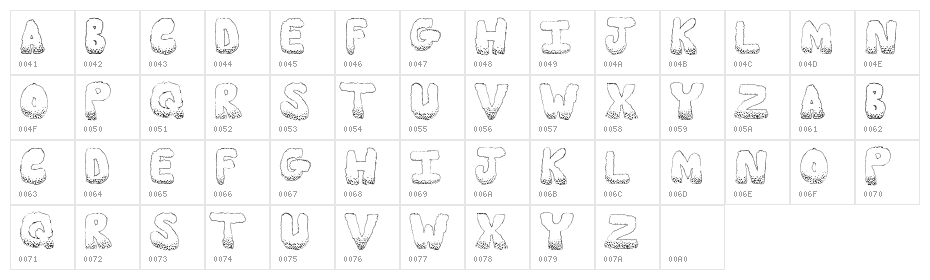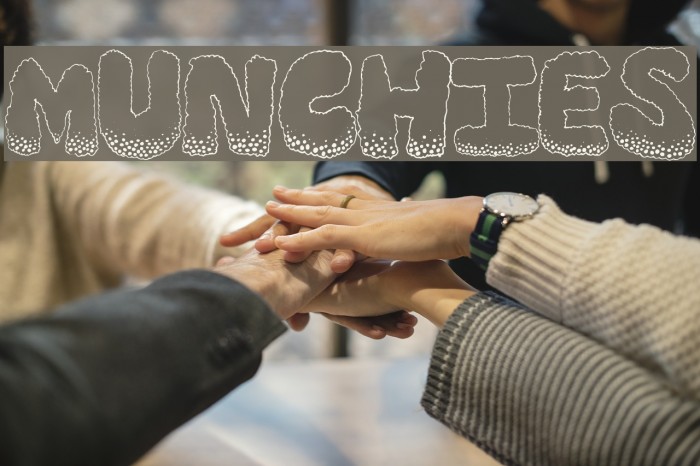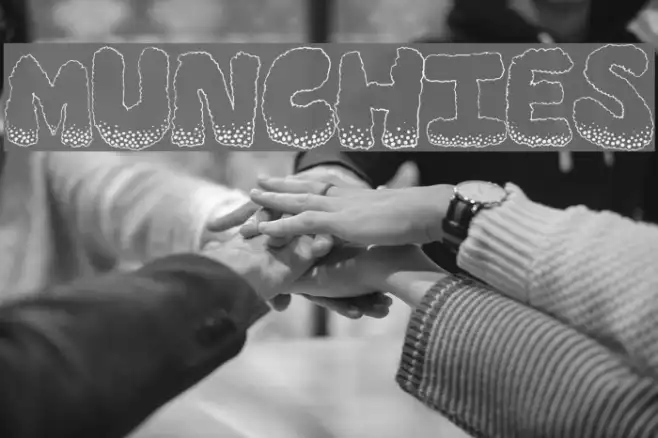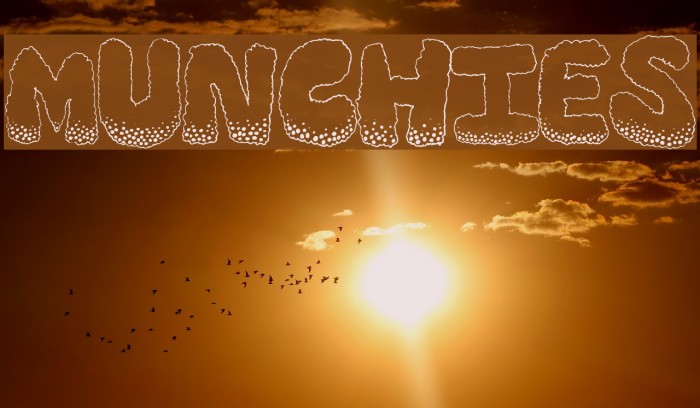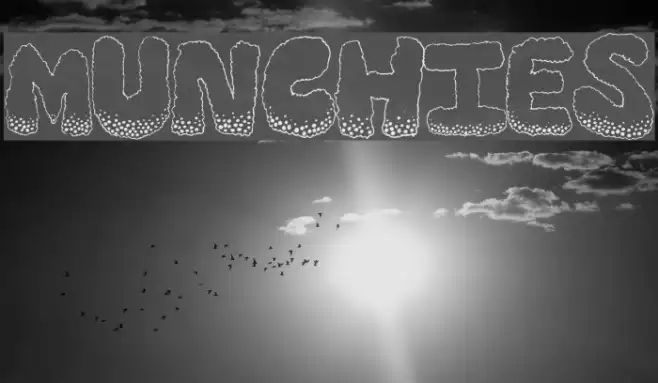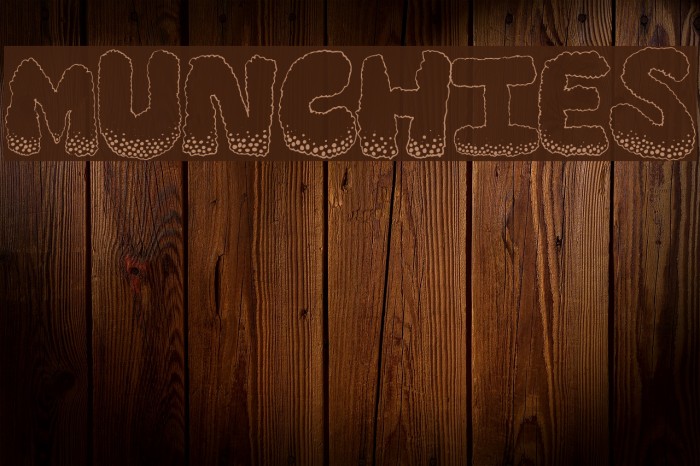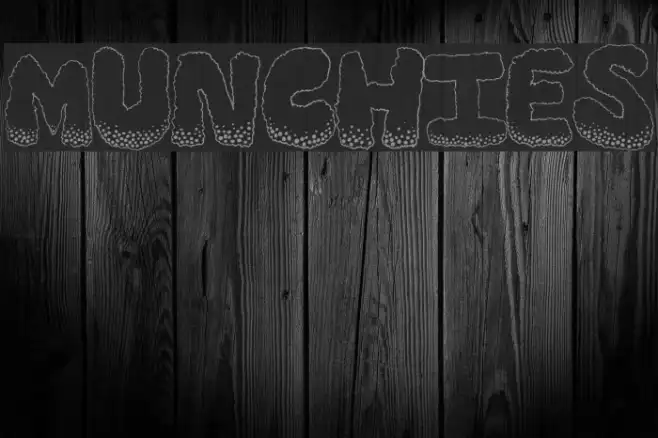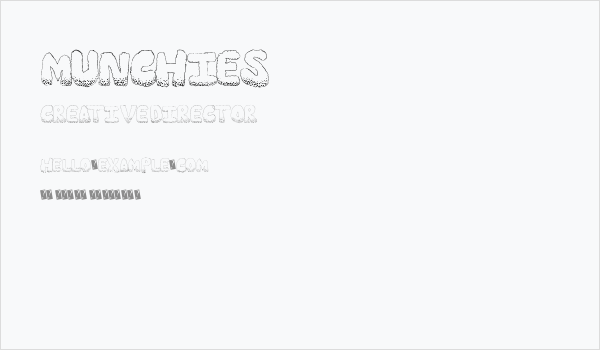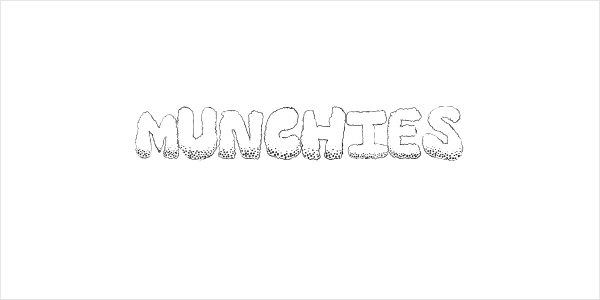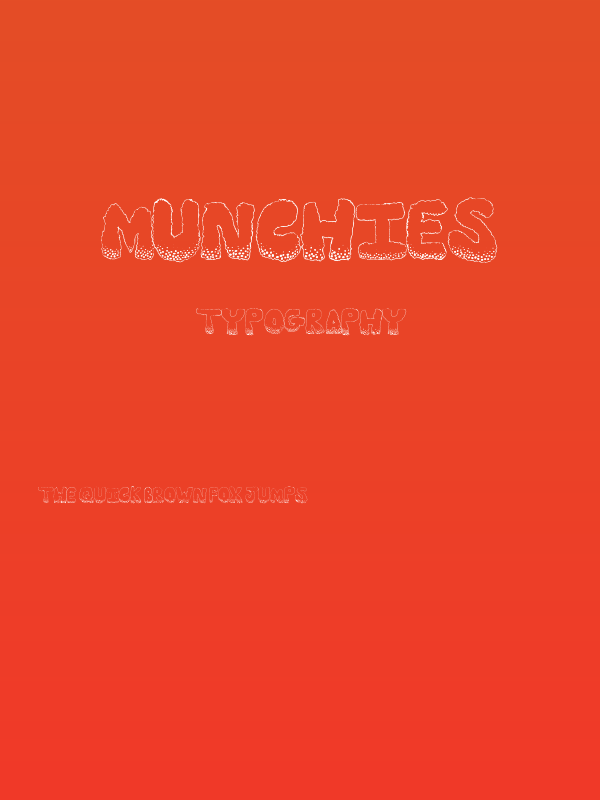
Munchies Font
Munchies Description
This playful and whimsical font features a bubbly, textured design that gives each letter a unique, hand-drawn appearance. The letters are bold and rounded, with a speckled pattern that adds depth and character. This font exudes a fun and casual vibe, making it perfect for projects that require a lighthearted and approachable aesthetic. The uppercase letters are consistent in height, while the overall style remains cohesive and visually engaging. The font's distinctive texture and playful nature make it stand out, capturing attention with its creative flair.